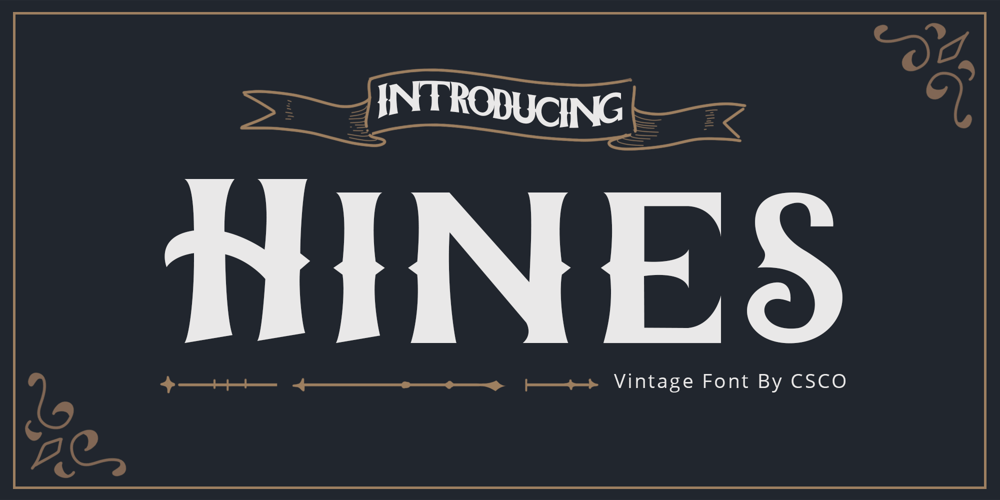
Hines Font Family was designed by Trio Nazzar Saputra, Wahyu Hadi Yuana and published by Craft Supply Co. Hines contains 1 styles and family package options. Unveiling Hines – The Vintage FontMasculine NuanceFirstly, Hines bursts forth with a strong, masculine nuance. Explicitly crafted, it resonates with the robust vibes of custom motor cultures and similar realms.Vintage CharmAdditionally, the font carries a vintage charm. Its classic serif details are infused with a tough, rugged aesthetic, making each letter captivating and rich with character.Tailored for CustomizationMoreover, Hines is meticulously tailored. Suitable for custom motor artworks and more, it harmonizes perfectly with themes of strength, adventure, and craftsmanship, enhancing the project’s vibe.